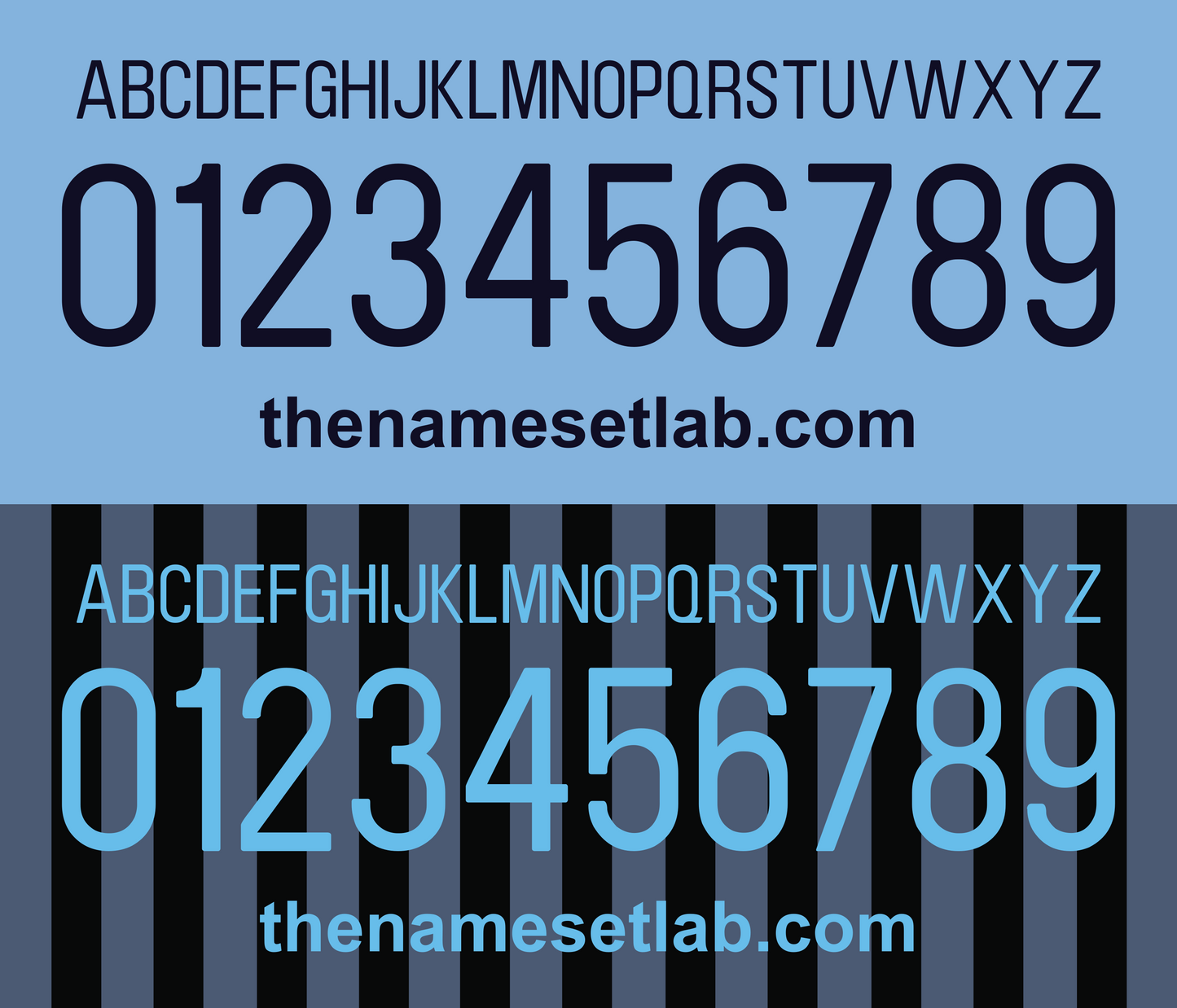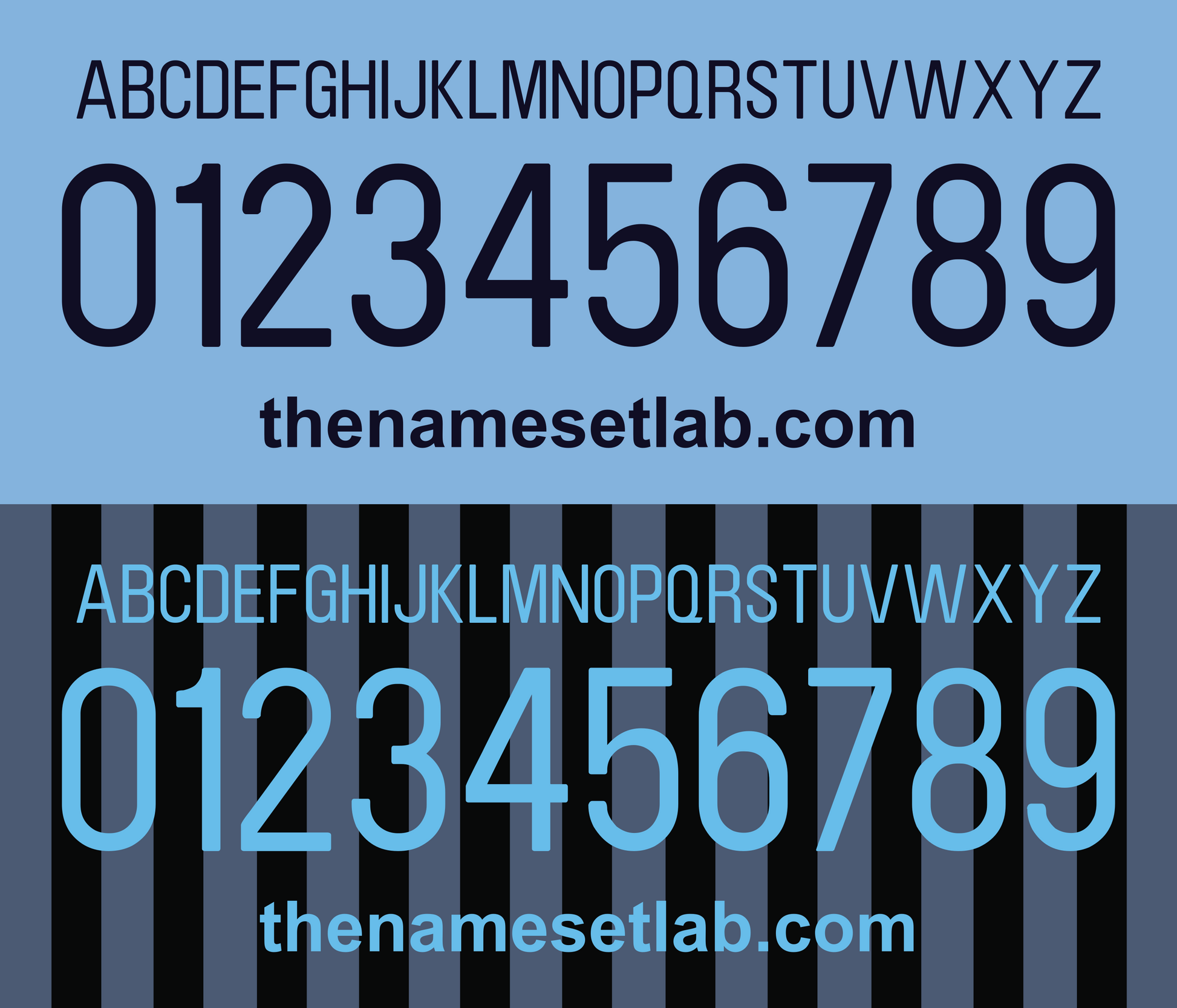
Manchester City 2012-2013 UCL / Cup Font Nameset AI Vector File
Download this Manchester City 2012-2013 UCL / Cup nameset as an editable .ai vector file. Styled in the 12/13 font, it’s perfect for recreating shirts from their Champions League campaign and defending Premier League champions season under Mancini. Great for custom kit projects or football memorabilia collections.